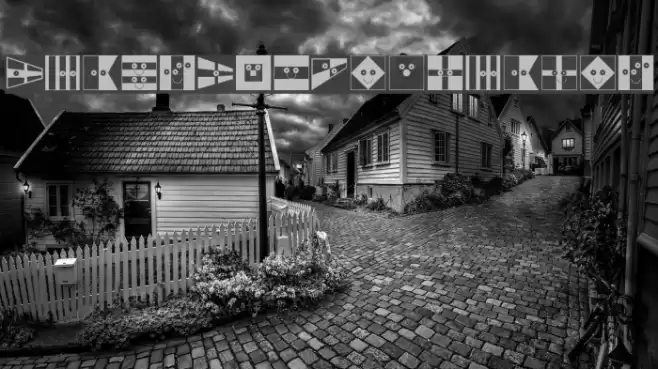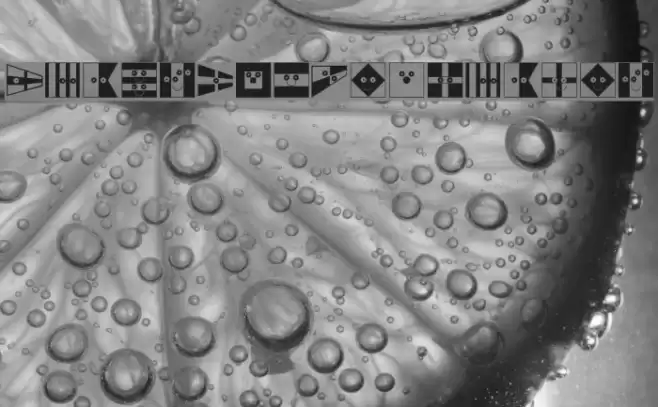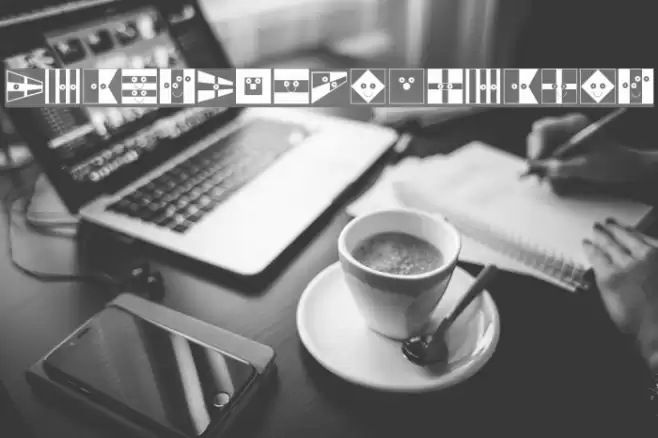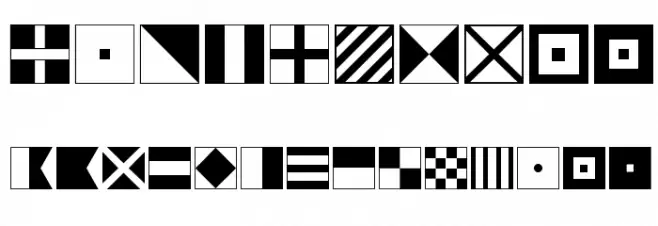
FlagsAndTemplates Font
FlagsAndTemplates Description
A geometric, high-contrast dingbat font featuring a variety of flag and template symbols in both triangular and square forms. The designs use bold black and white shapes, lines, and dots, with some incorporating smiley faces or gear-like motifs. The style is highly graphic and decorative, focusing on clear, abstract forms.
A decorative dingbat font of geometric flag and template icons from Uncategorized fonts.
- Proposed Projects: Infographics, educational materials, maritime or signaling graphics, playful branding, icon sets, pattern design.
- Overall Style: Decorative, Modern, Playful
- Use Case: Icons, Decorative elements, Thematic dividers, Educational charts